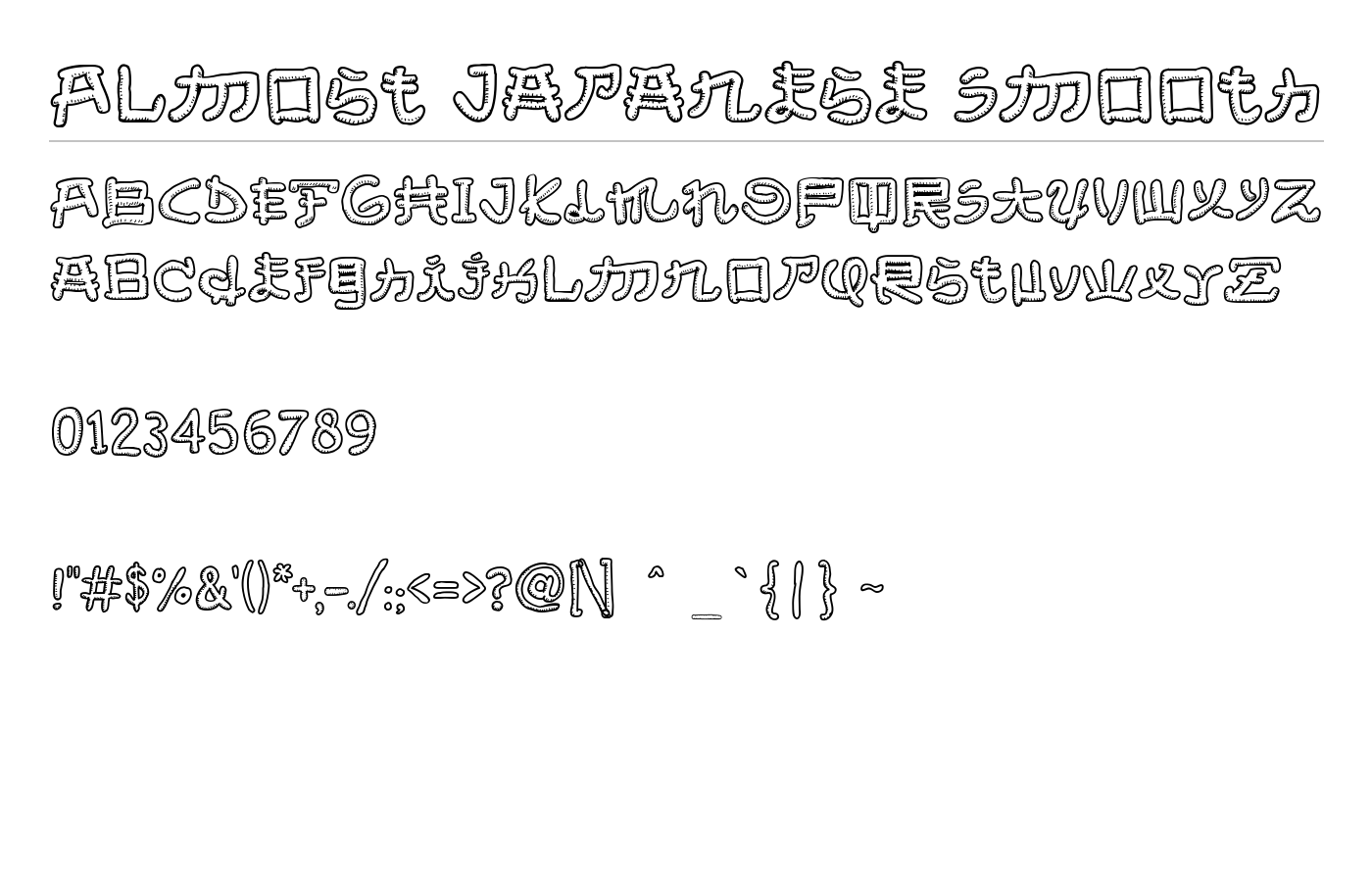
Almost Japanese Smooth is a playful and quirky sans serif font with a hand-drawn, textured appearance that evokes a casual, artistic vibe. Its wide letterforms and irregular strokes give it a lively, approachable feel, making it ideal for creative projects, informal branding, and eye-catching headlines where personality and charm are key. This font works well in designs that want to convey friendliness and a unique, handcrafted style.
Almost Japanese Smooth Font
About Almost Japanese Smooth Font
| Font family | Almost Japanese Smooth Font |